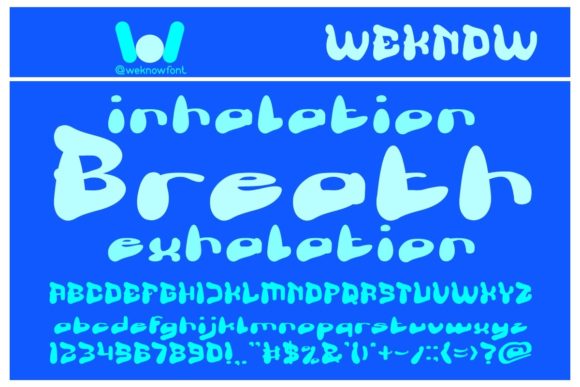
The Breath Font: A Quirky Design Delight
So, what makes the Breath font so special? Here are a few things I love:
- ✨ Unique and quirky design that’s sure to turn heads
- 💫 Works beautifully on a variety of projects, from posters to social media graphics
- 🎨 Supports OpenType features, glyphs, and stylistic alternates for added creative control
Of course, no font is perfect, and Breath is no exception. Here are a few quirks to keep in mind:
- 🤔 May not be the best choice for body text or long-form writing due to its display-focused design
- ⚠️ Some users may find the font’s quirks and irregularities too attention-grabbing for certain projects
The Story Behind Breath Font
Breath font was designed by a team of creatives who wanted to create a font that was both unique and functional. Inspired by the natural world and the human experience, they crafted a font that is both quirky and beautiful. While the exact design process is unknown, it’s clear that the team poured their hearts and souls into creating a truly special font.
| Font Name | Breath Font |
| Author | weknow |
| What is Breath font best suited for? | Breath font is ideal for display text, headlines, titles, and other creative projects that require a unique touch. |
| Is Breath font difficult to read? | No, Breath font is highly legible, even at small sizes. However, its quirky design may make it less suitable for body text or long-form writing. |